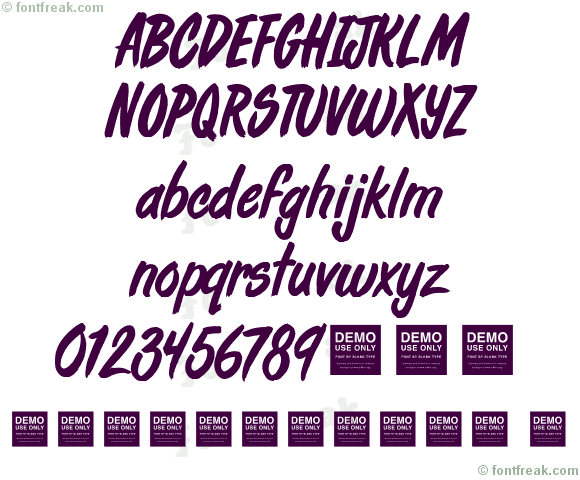
Fresh Daily
About Fresh Daily
The Fresh Daily font by BLKBK Fonts is a playful display typeface that embodies a lively and contemporary aesthetic. This script-style font features a casual, handwritten look that adds a touch of personality to any design. Its stroke weight is consistent yet varied, giving it an organic feel, while the fluid connections between letters create a sense of movement and spontaneity. The spacing is generous, allowing each character to breathe and enhancing readability.
Ideal for a wide range of applications, the Fresh Daily font is perfect for wedding invitations that seek a whimsical touch, vibrant restaurant menus that aim to entice diners, and eye-catching movie posters that require an engaging visual appeal. Small business owners can leverage this font for branding materials, social media graphics, and promotional flyers, ensuring their message stands out. Content creators will also find it a valuable asset for blog headers and digital content that needs a fresh, approachable vibe.
What sets the Fresh Daily font apart is its unique blend of charm and versatility. It captures attention while remaining approachable, making it a go-to choice for those aiming to create engaging and memorable designs. With a Fresh Daily font free download, you can effortlessly enhance your projects with this delightful typeface, bringing a fresh perspective to your creative endeavors.